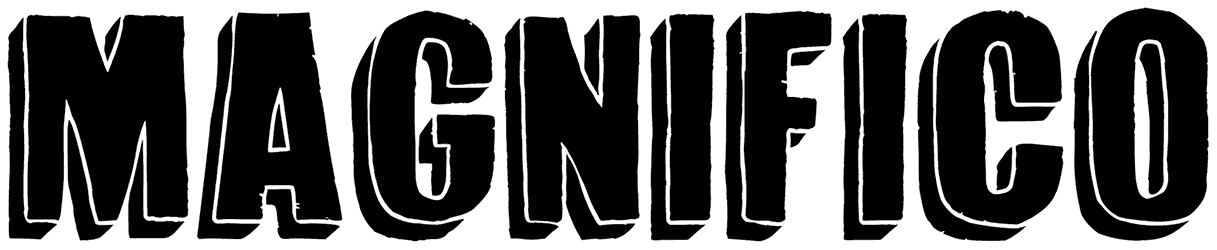
Magnifico Font
If you want to add a shadow to your projects and create a scary mood, Magnifico can successfully increase their visual impact. One thing that makes this retro font unrivaled is its strong and powerful appearance, which m…
If you want to add a shadow to your projects and create a scary mood, Magnifico can successfully increase their visual impact. One thing that makes this retro font unrivaled is its strong and powerful appearance, which makes it suitable for all kinds of signs, posters, or even clothing designs.
This font can easily attract anyone’s eye and demand immediate attention even without lowercase letters.